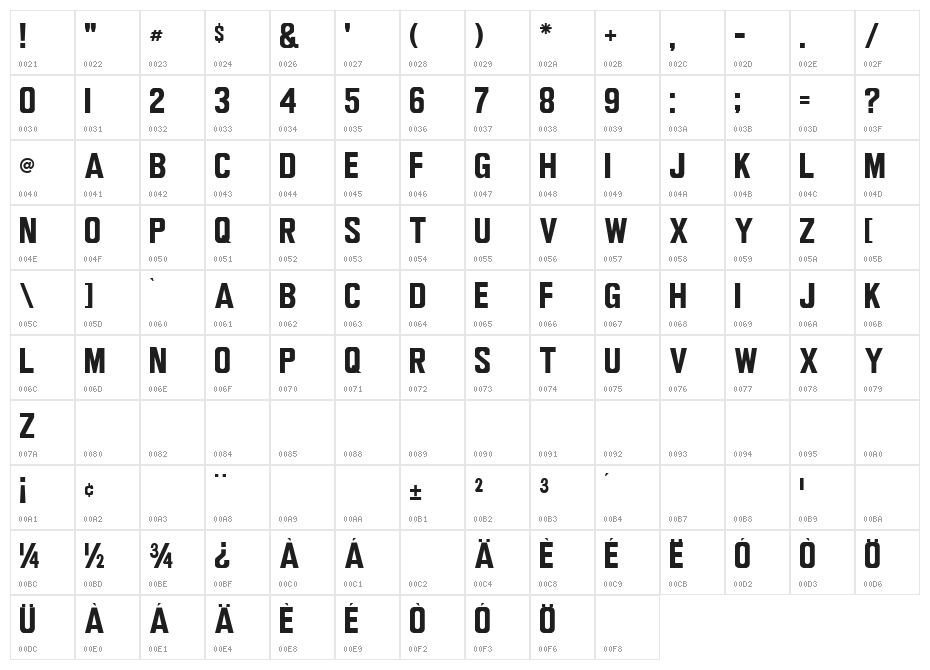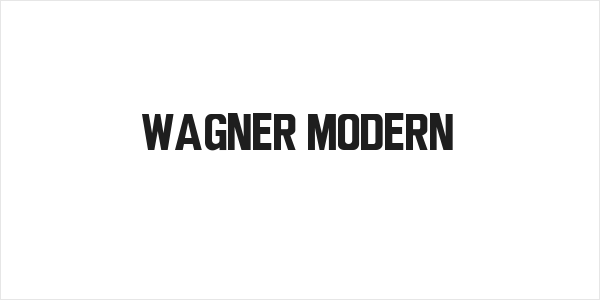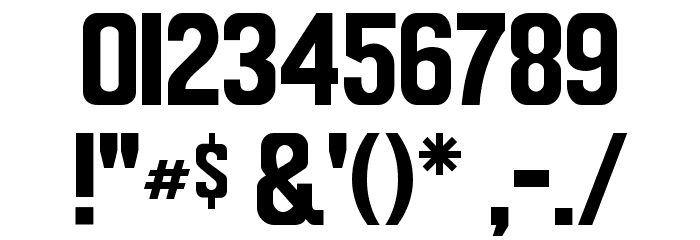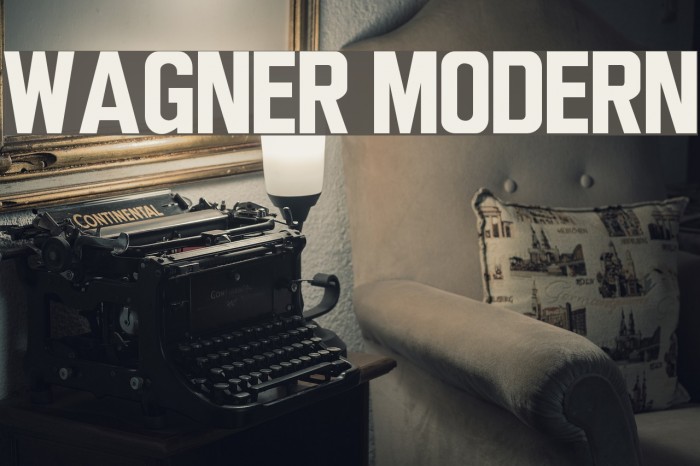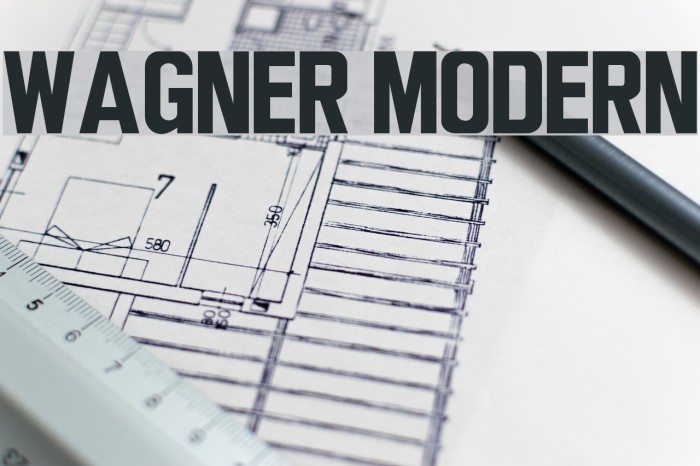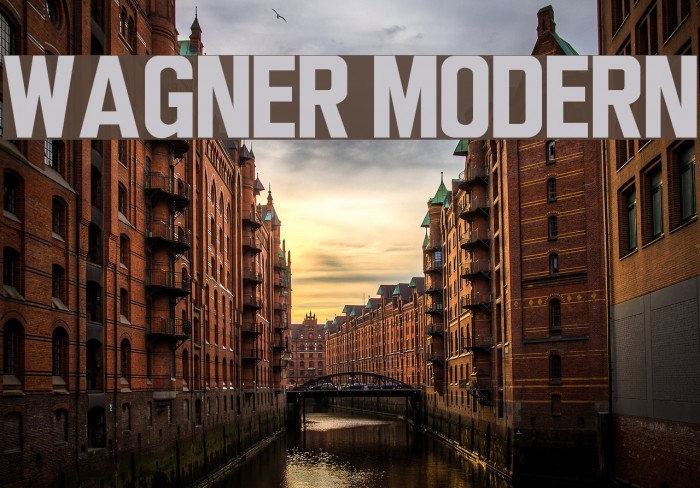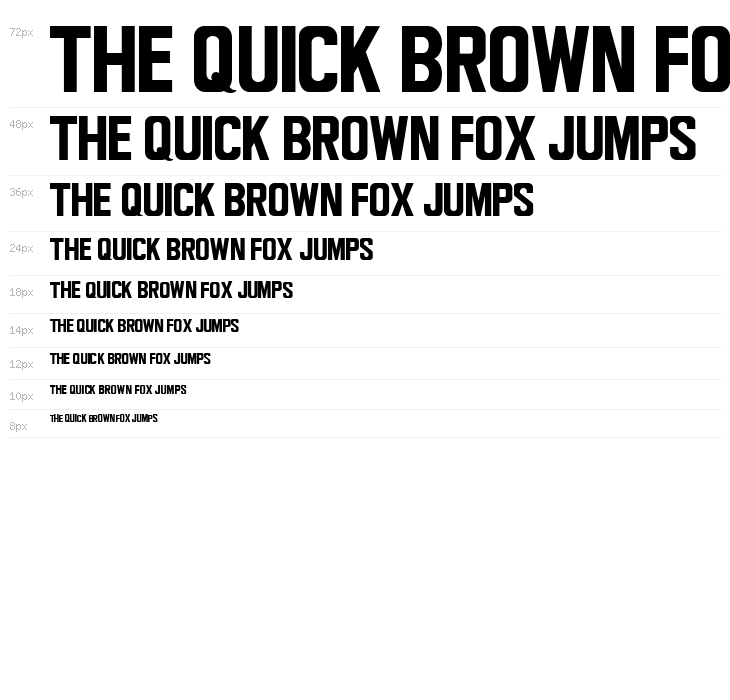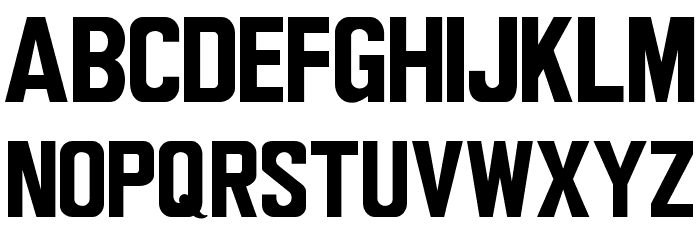
Wagner Modern Font
Wagner Modern Description
This font features bold, geometric letterforms with a strong presence. The characters are uniform in height and width, creating a cohesive and structured appearance. The strokes are thick and consistent, providing a sense of stability and strength. The overall design is modern and clean, with a slight industrial feel. The uppercase letters are particularly striking, with sharp angles and a block-like structure. The numerals and special characters maintain the same boldness and clarity, ensuring readability across various applications.
| Proposed Projects | Ideal for branding, headlines, posters, and signage where a strong, modern impact is desired. |